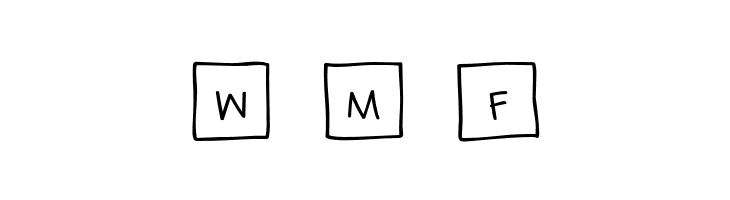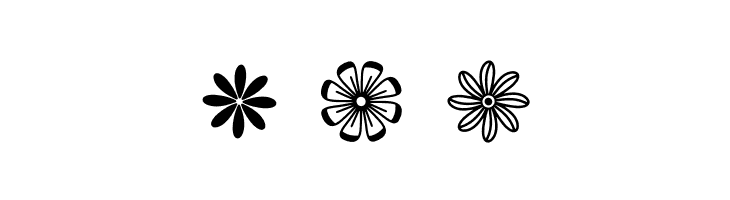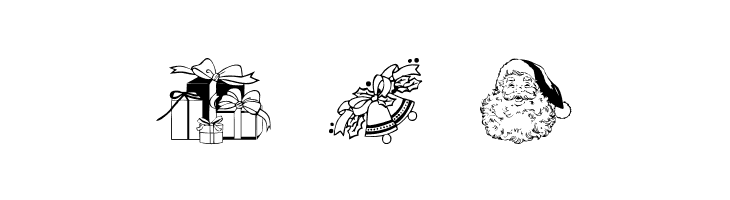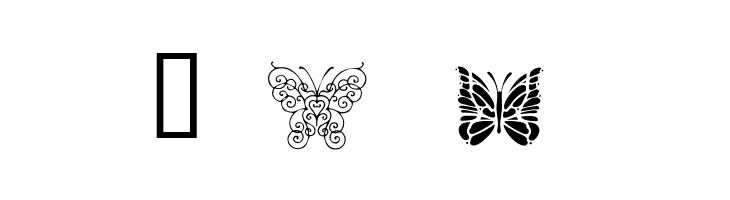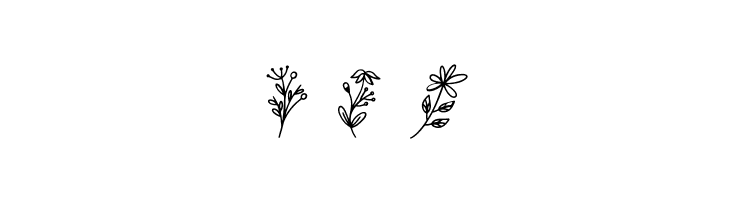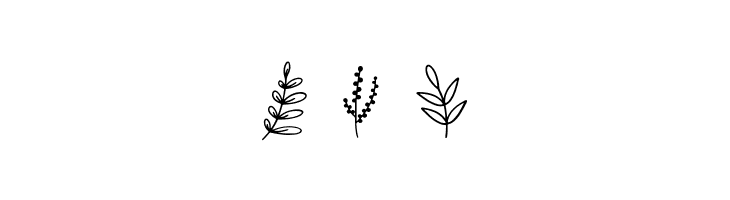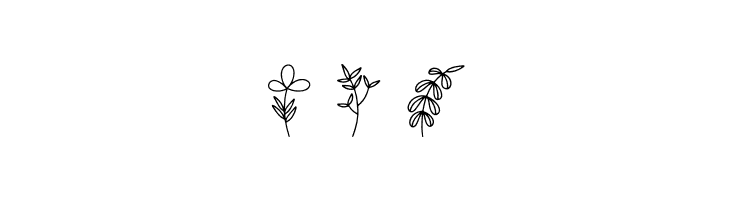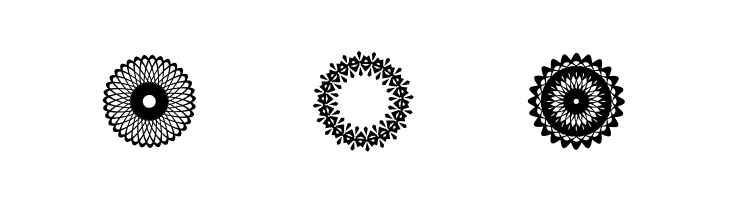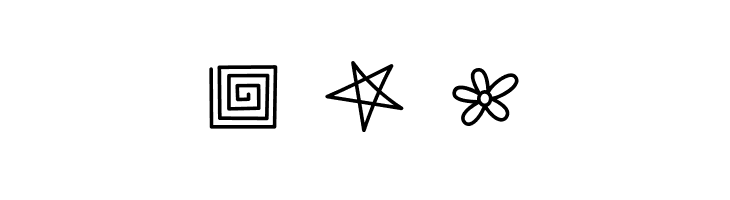
A playful, hand-drawn font resembling characters on sticky notes.
A decorative floral dingbat font with diverse botanical icons.
A decorative floral and geometric symbol font with unique flower and box glyphs.
Christmas-themed dingbat font with festive illustrations.
A decorative butterfly-themed dingbat font with varied wing designs.
Hand-drawn botanical and geometric decorative set.
Hand-drawn floral dingbat set with whimsical botanical motifs.
Hand-drawn botanical doodles with a whimsical, organic style.
Ornamental dingbat font with spirograph shapes and bold rectangles.
A playful doodle-style icon font with whimsical symbols.